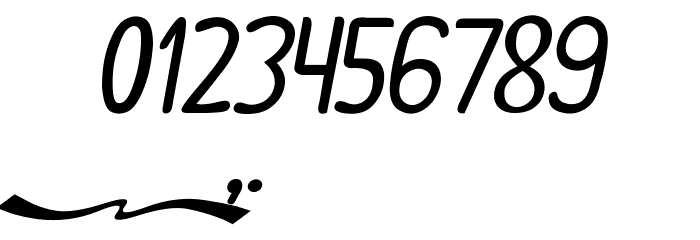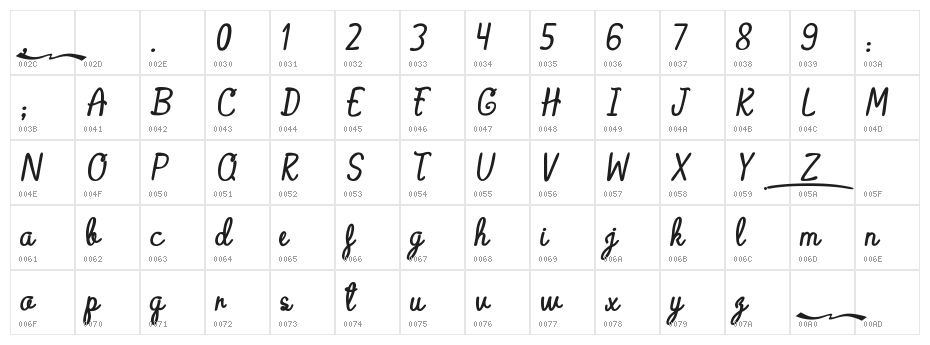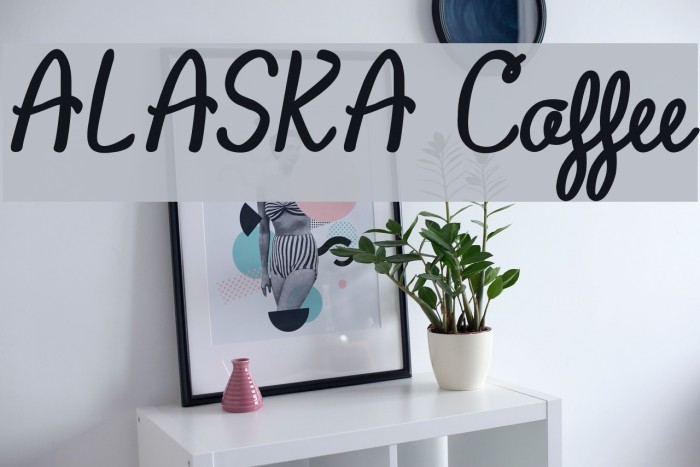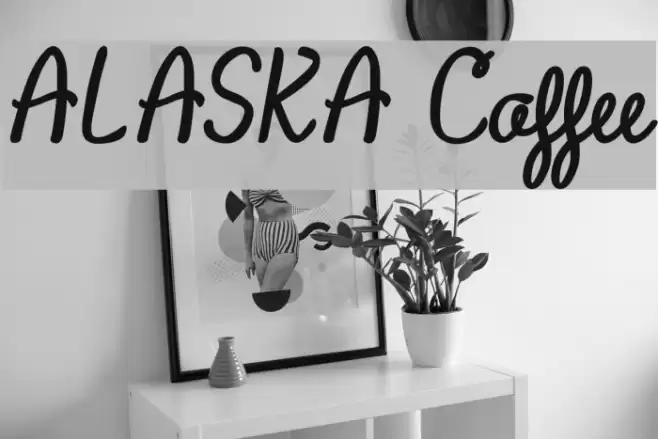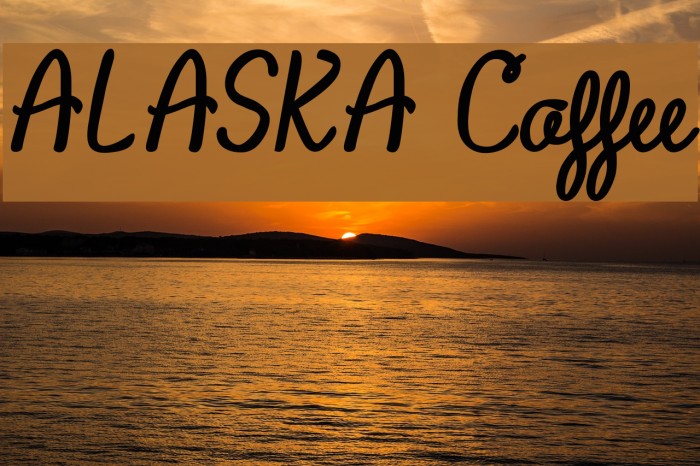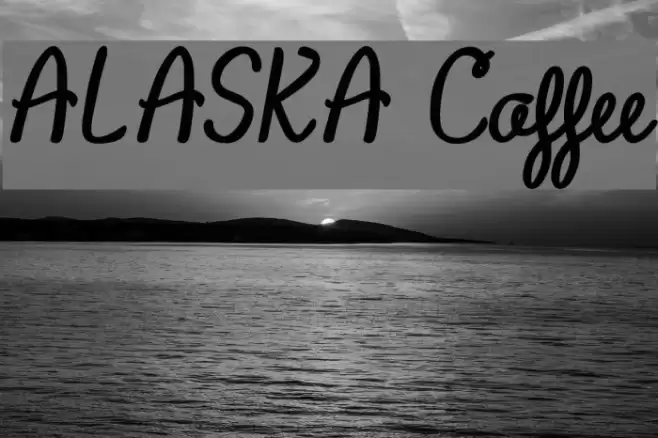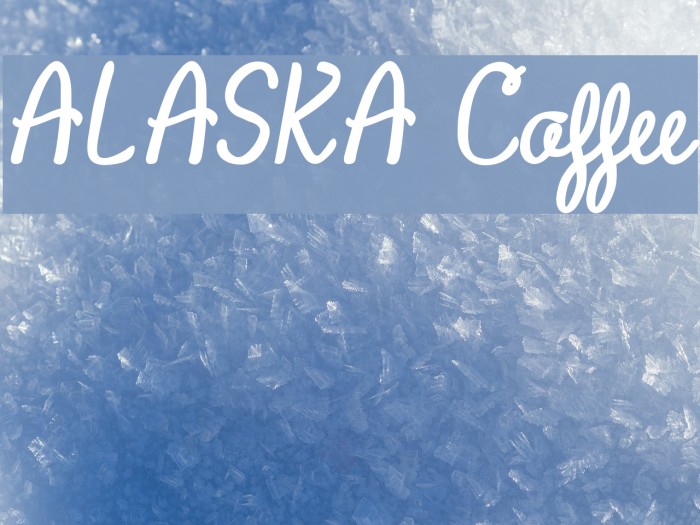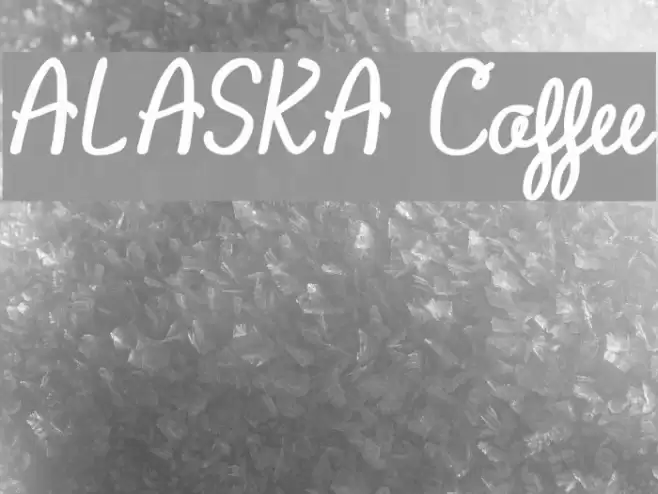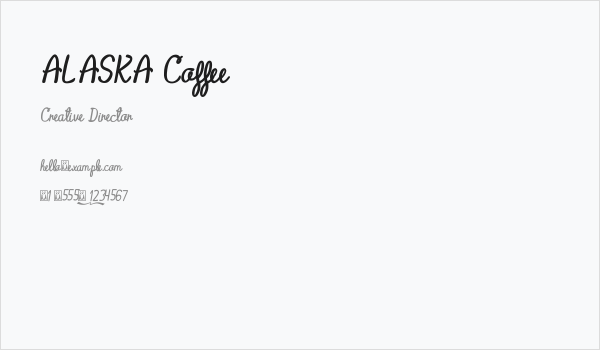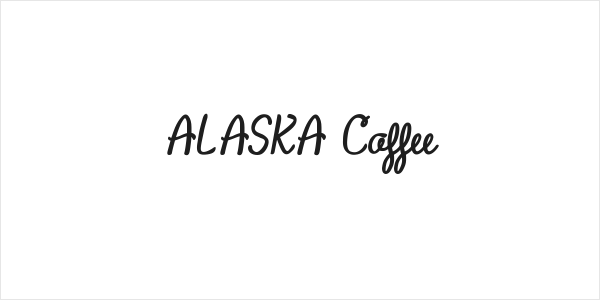
ALASKA Coffee Font
ALASKA Coffee Description
This font features a playful and casual script style with a handwritten appearance. The uppercase letters are bold and slightly slanted, giving a sense of movement and fluidity. The lowercase letters maintain a consistent flow with smooth curves and rounded edges, enhancing the informal and friendly vibe. The numerals are clear and legible, matching the overall aesthetic with a slight slant. Special characters are included, maintaining the playful style. This font is ideal for projects that require a personal touch or a relaxed, approachable feel.
| Use Case | Logos, Invitations, Menus |
| Proposed Projects | Great for greeting cards, invitations, cafe menus, and branding projects that aim for a personal and friendly touch. |